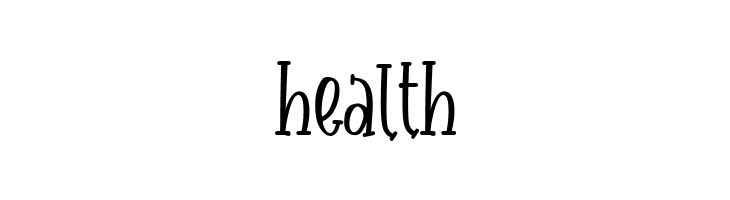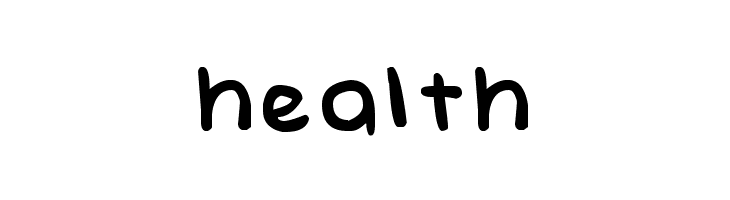
A modern, elegant script font with flowing, cursive characters.
A playful, rounded font with a whimsical and friendly style.
A modern, elongated font with sleek, thin strokes and geometric shapes.
A graceful and elegant script font with flowing, cursive strokes.
A playful, handwritten font with a whimsical and charming style.
A dynamic and flowing italic script font with elegant connections.
A playful, tilted font with bold, condensed characters and a whimsical style.
A playful, tilted font with a hand-drawn, whimsical style.
A cursive, elegant script font with flowing loops and swashes.
A playful and elegant script font with flowing, cursive letterforms.